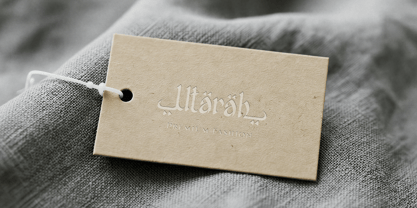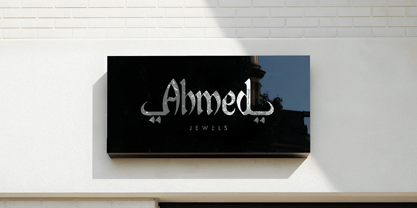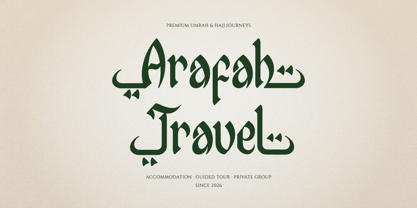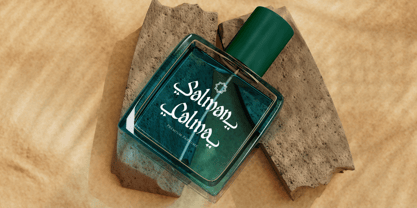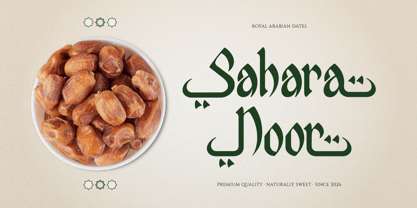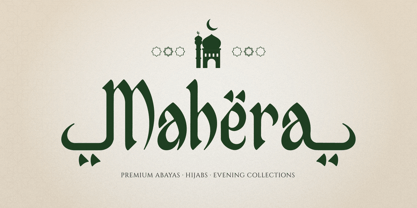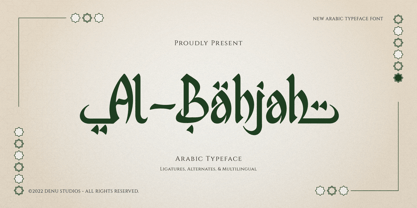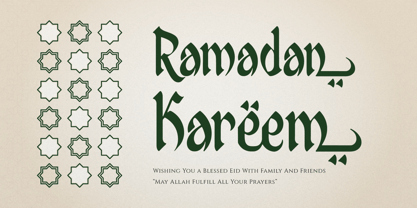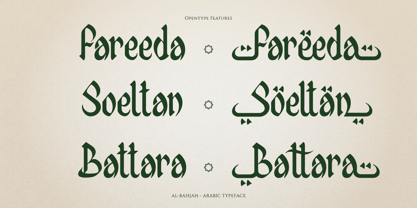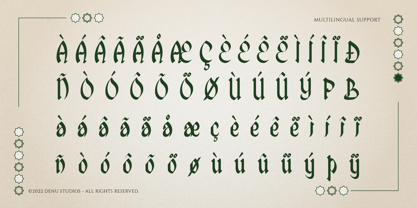
Al Bahjah
The Al Bahjah Font Family was designed by Dede Nugraha and published by Denustudio. Al Bahjah contains 1 styles. More about this family
Al Bahjah | Arabic Typeface, from Denustudios, suitable for any projects such as: logos, branding projects, homeware designs, product packaging, mugs, quotes, posters, shopping bags, t-shirts, book covers, name card, invitation cards, greeting cards, label, photography, watermark, special events, and all your other lovely projects that need Arabic a taste.